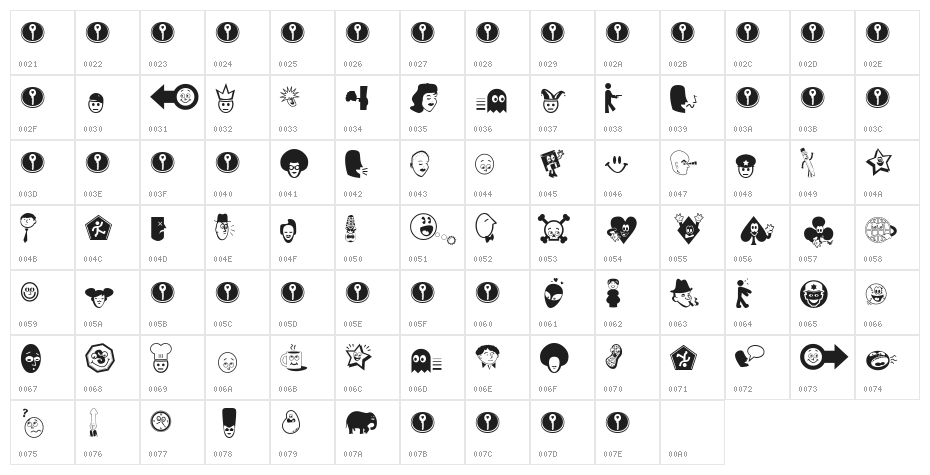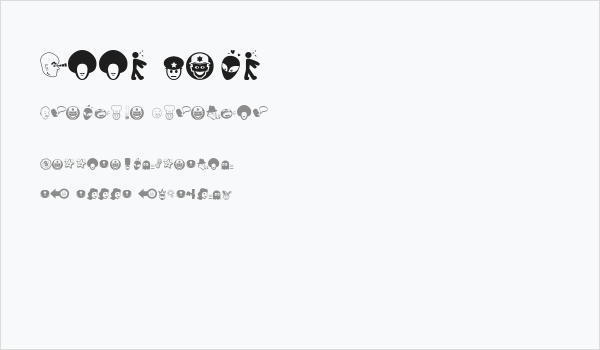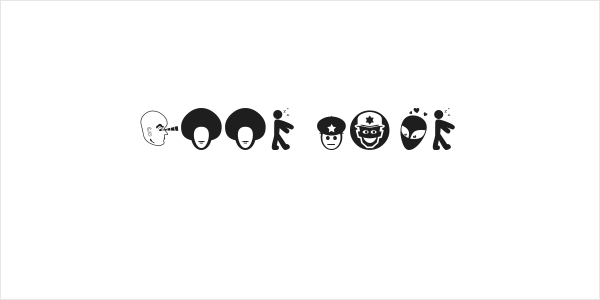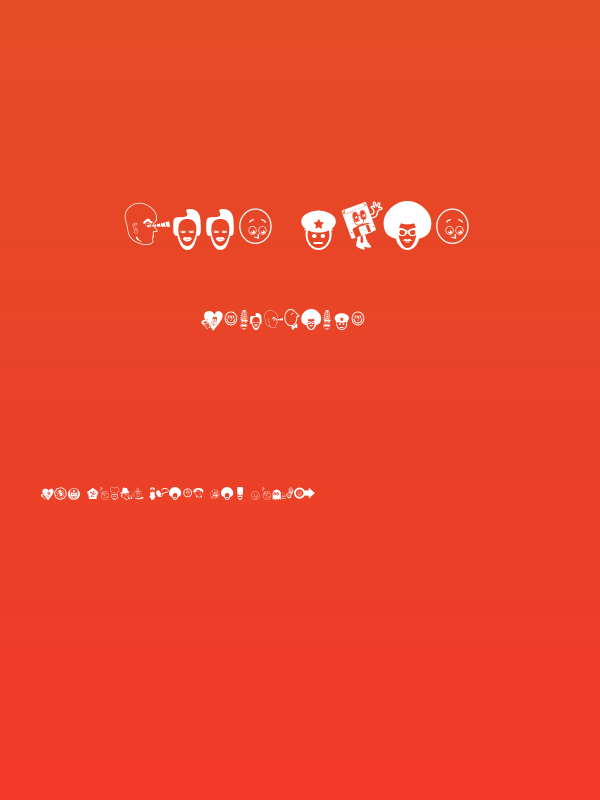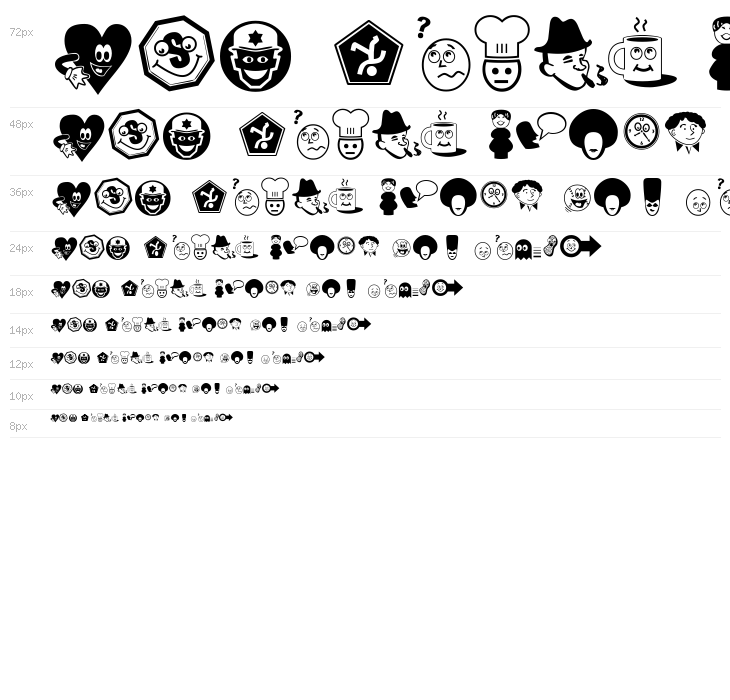
Good Head Font
Good Head Description
| Overall Style | Playful, Comic, Whimsical, Decorative |
| Use Case | Logos, Posters, Stickers, Social media graphics, Themed event materials |
| Proposed Projects | Children's books, comic strips, playful branding, educational materials, party invitations, stickers. |